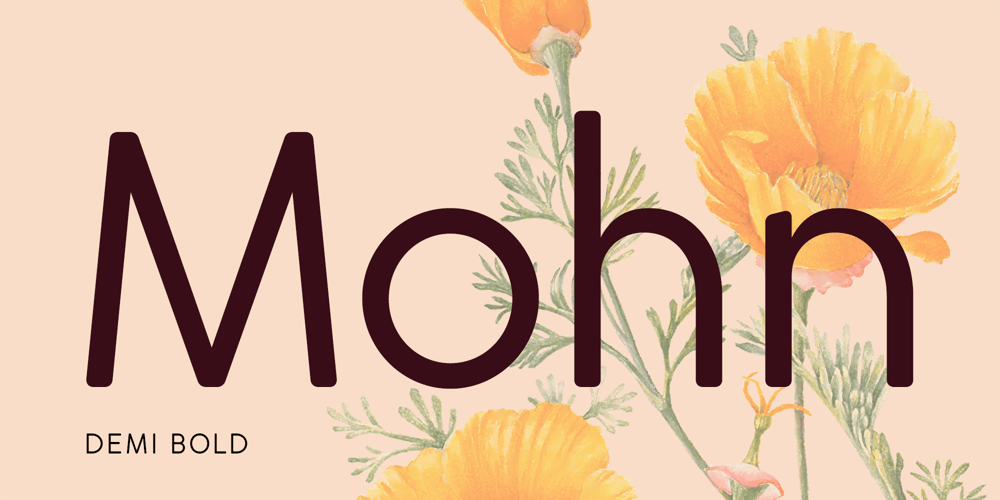
Mohn Font Family was designed by Ryan Keightley and published by Ryan Keightley. Mohn contains 14 styles and family package options. Mohn is a sans serif font that draws inspiration from the Bauhaus movement, characterized by its geometric shapes and neo-grotesque elements. With its clear and legible forms, Mohn works as a body copy font, or blow it up larger for headlines to really see its gently rounded corner details which bring a personal and contemporary touch to any design project. Available in 7 weights with italics for each, a variety of accented glyphs, ligatures, and extra stylistic alts on select letters.